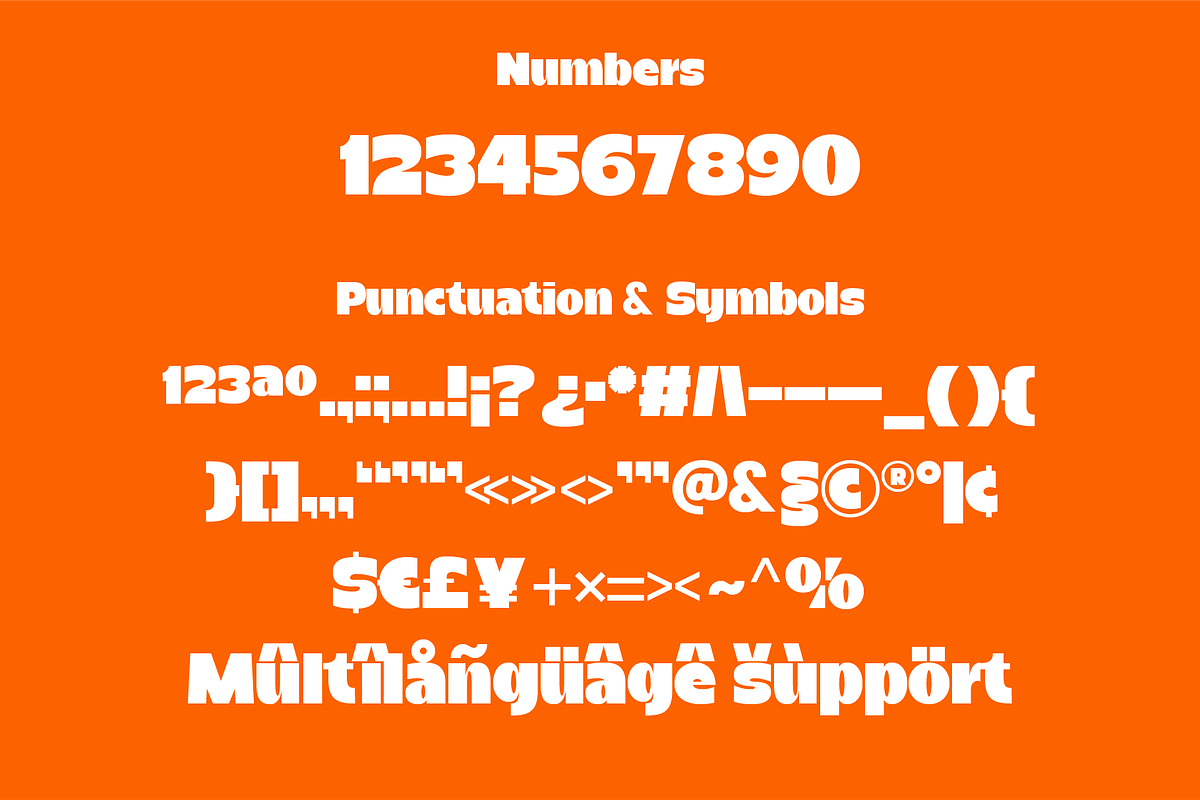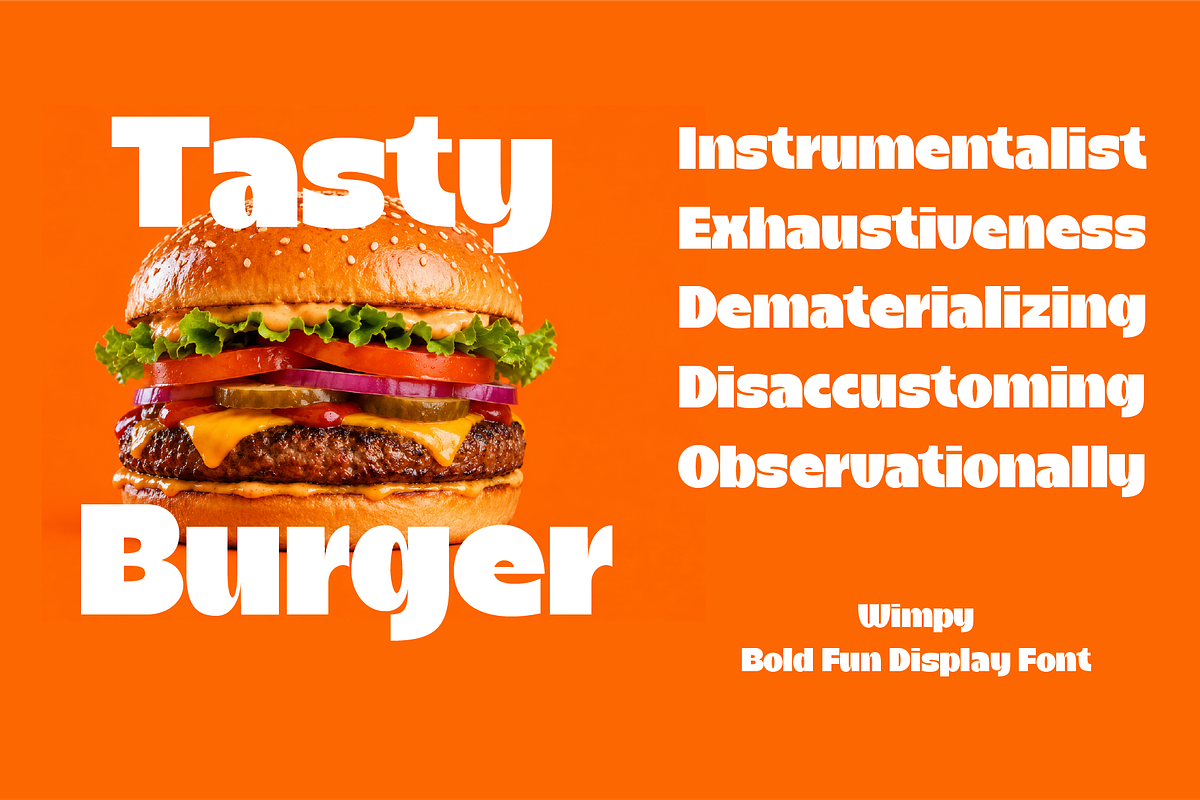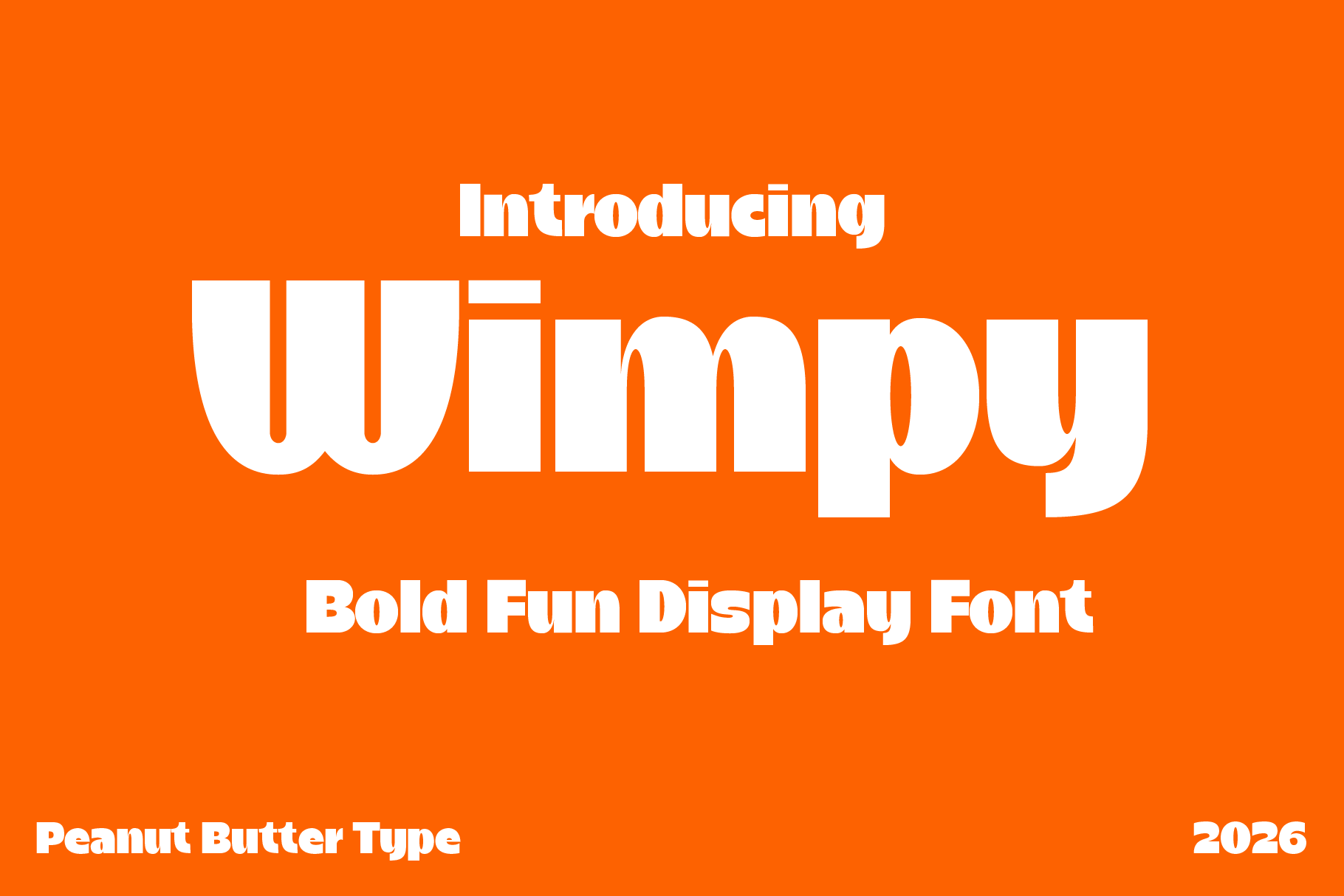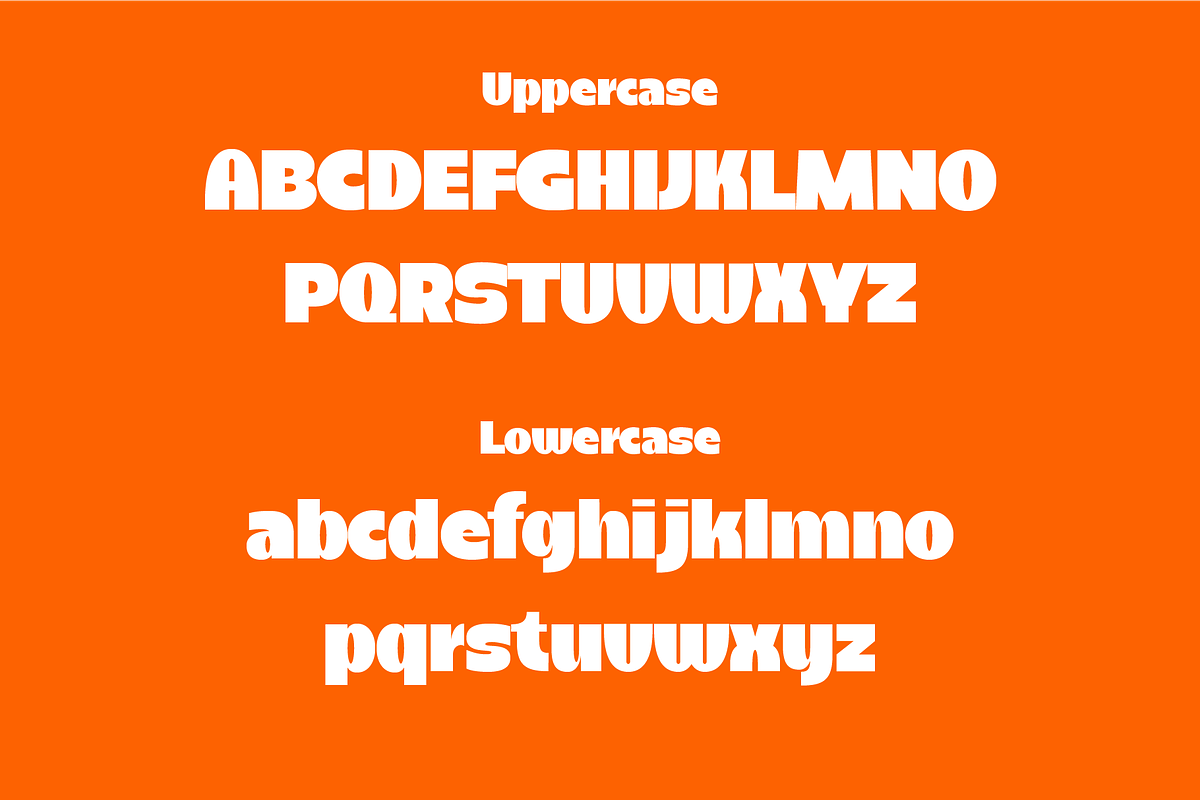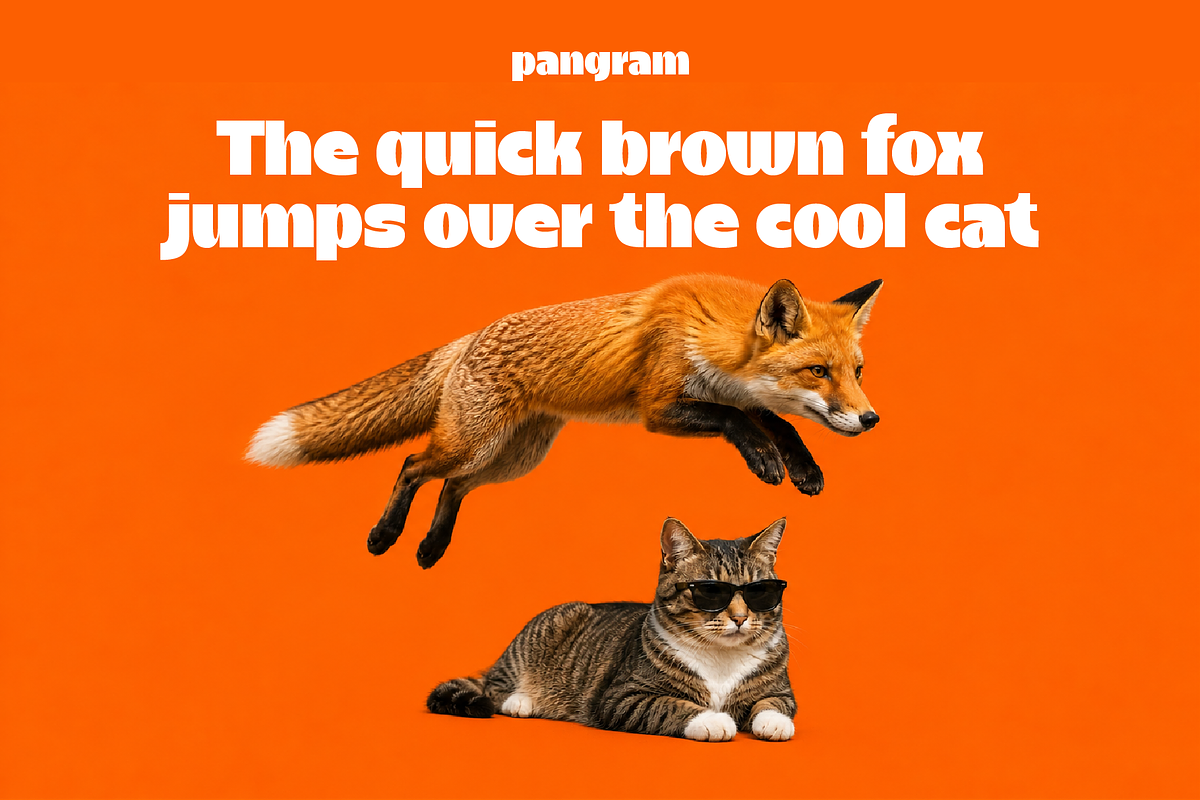
Wimpy Bold Fun Display Font
Wimpy is a bold and fun display font that brings a playful and energetic personality to every design. Featuring chunky letterforms, smooth curves, and a lively style, this typeface is perfect for projects that need a cheerful and attention-grabbing look. Whether you’re creating posters, logos, product packaging, social media content, kids-themed designs, or creative branding, Wimpy adds a sense of excitement and charm that instantly stands out. Its bold appearance ensures strong readability while maintaining a lighthearted and modern feel. With its unique character and playful vibe, Wimpy is an excellent choice for designers who want to create fun, memorable, and visually engaging designs.